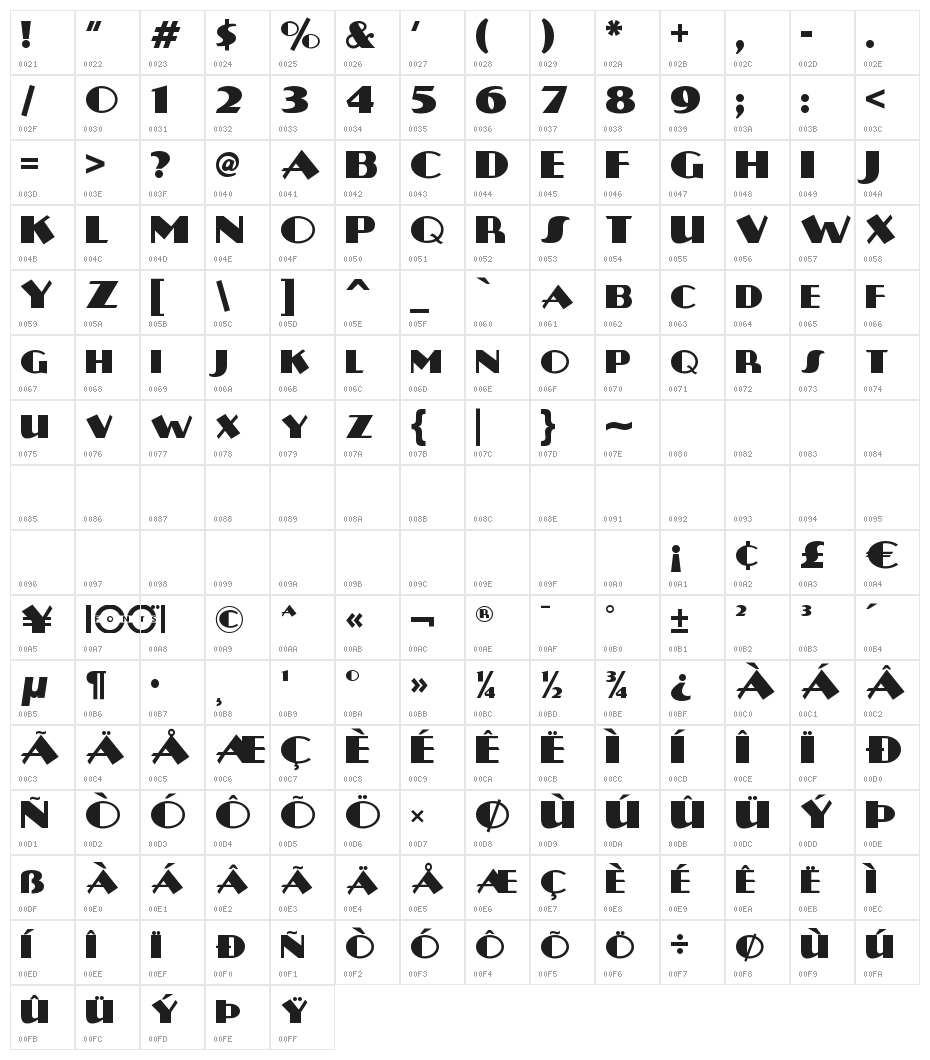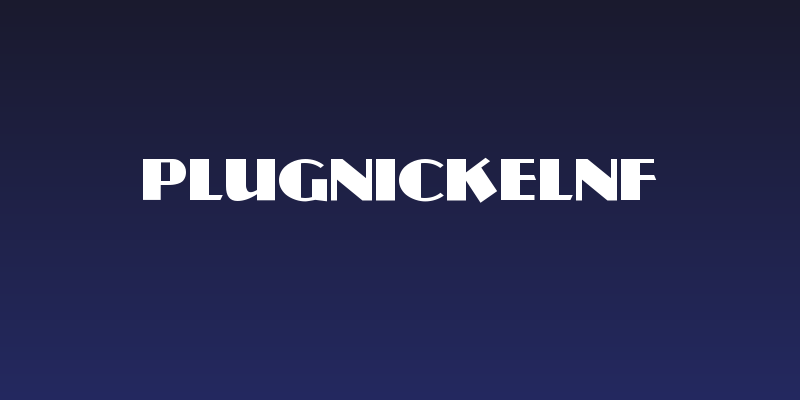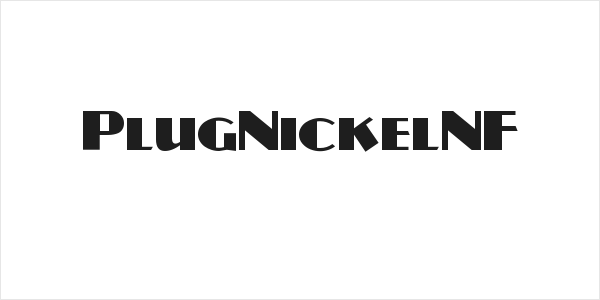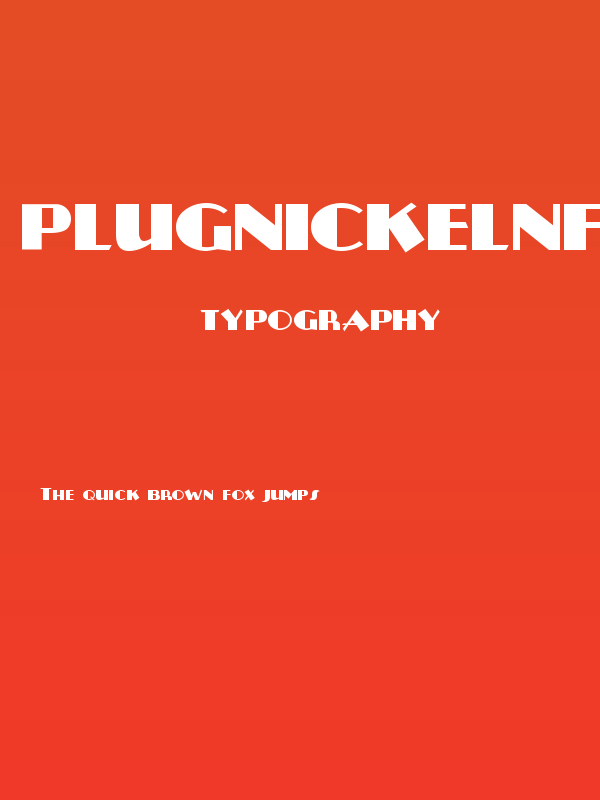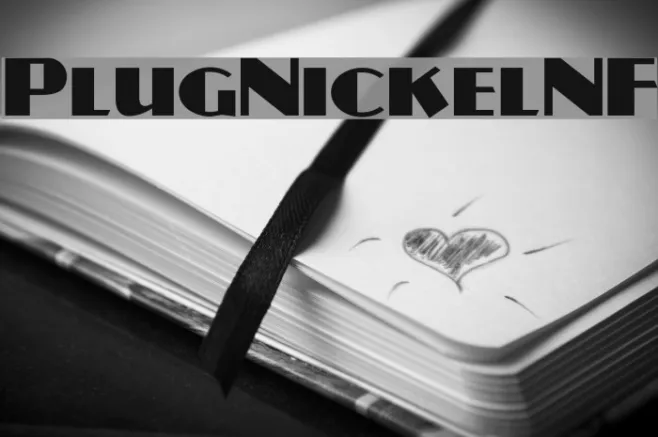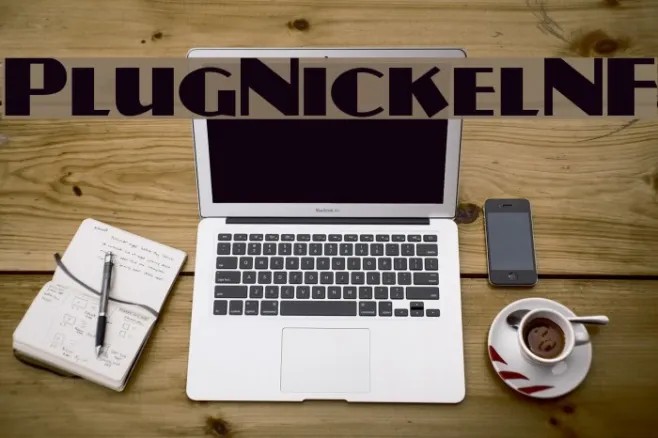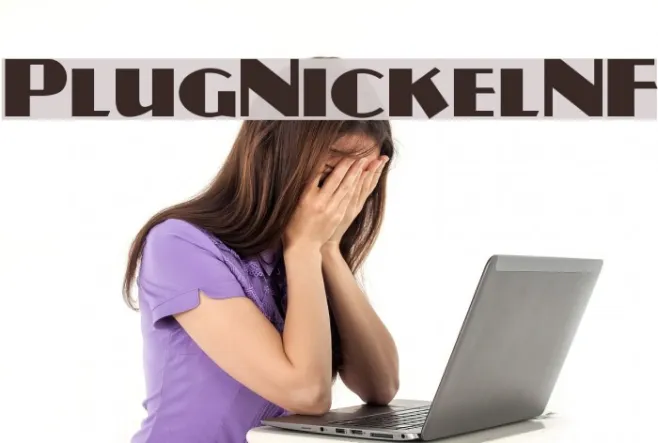
PlugNickelNF Font
PlugNickelNF Description
This font features a bold and striking design with a strong geometric influence. The characters are wide and have a distinct, angular style that gives them a modern and dynamic appearance. The uppercase letters are particularly bold, with sharp edges and a uniform thickness that creates a sense of stability and strength. The lowercase letters maintain the same boldness, with a slightly more rounded approach that adds a touch of softness to the overall look. The numerals are consistent with the alphabet, offering a cohesive and visually appealing set. Special characters are designed to match the boldness and geometric style, making this font suitable for various creative applications.